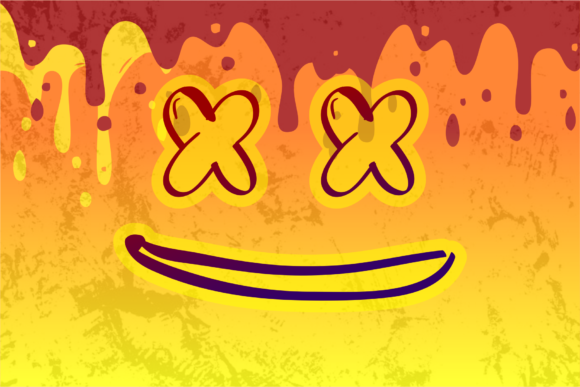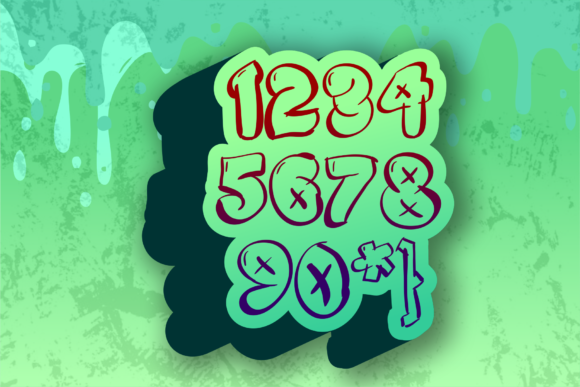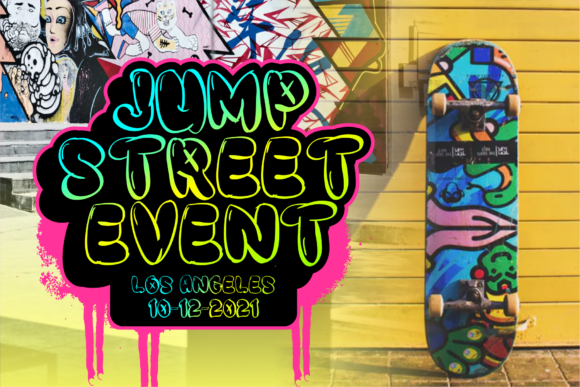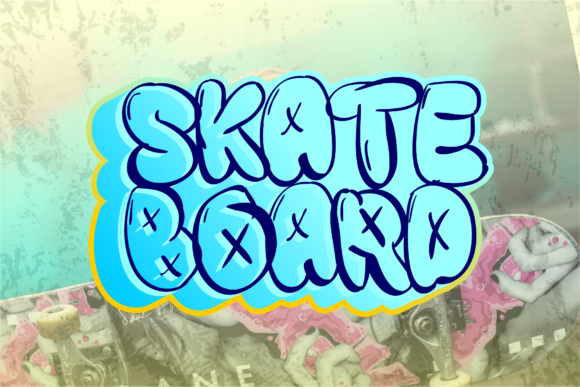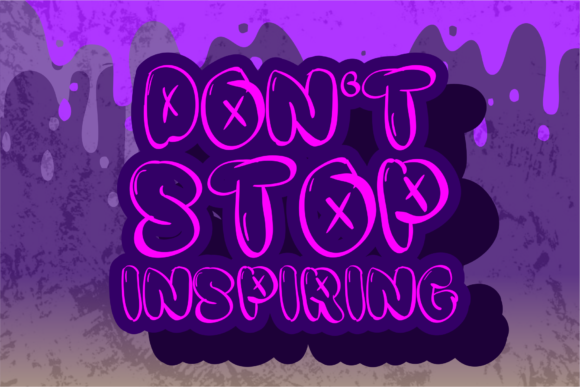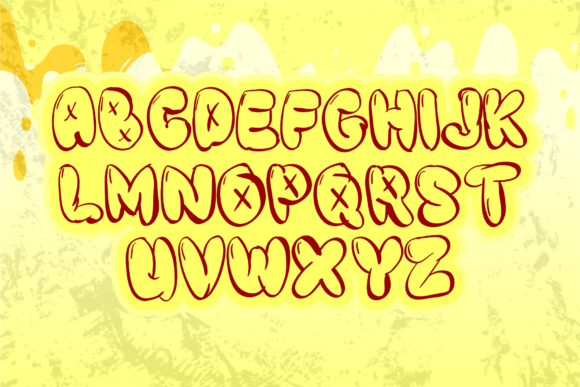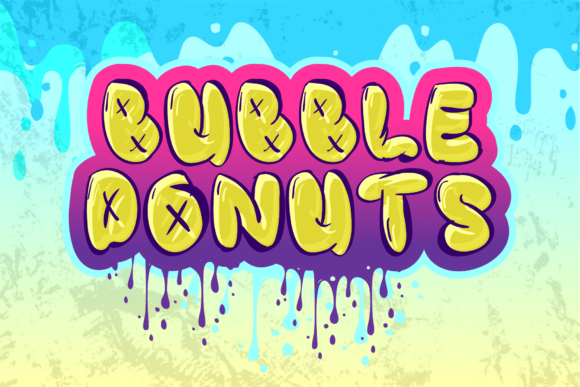
Bubble Donuts Font: The Ultimate Graffiti-Style Display Font for Crafty Creations
Are you a designer, crafter, or DIY enthusiast looking for a font that can add a touch of coolness to your projects? Look no further than the Bubble Donuts Font! This graffiti-styled display font is perfect for elevating a wide range of crafting ideas, from cards and branding to labels and more. In this article, we’ll dive into the world of Bubble Donuts Font and explore its features, benefits, and uses.
What is Bubble Donuts Font?
Bubble Donuts Font is a unique and stylish display font that is inspired by the playful and carefree spirit of graffiti art. Its bold, bubbly letters are designed to make a statement and add a touch of whimsy to any project. Whether you’re creating handmade cards, crafting custom labels, or developing a brand identity, Bubble Donuts Font is the perfect choice.
Features of Bubble Donuts Font
• Graffiti-style design: Bubble Donuts Font features a bold, graffiti-inspired design that is sure to turn heads.
• Display font: This font is specifically designed for display purposes, making it perfect for headlines, titles, and other prominent text elements.
• Cool and playful vibe: Bubble Donuts Font has a fun and carefree spirit that is sure to add a touch of personality to your projects.
• Versatile: This font can be used for a wide range of crafting ideas, from cards and invitations to branding and labels.
Benefits of Using Bubble Donuts Font
So, why should you choose Bubble Donuts Font for your next project? Here are just a few benefits of using this amazing font:
• Adds personality: Bubble Donuts Font is a great way to add a touch of personality and whimsy to your projects.
• Instant impact: The bold, graffiti-style design of Bubble Donuts Font makes an instant impact, grabbing the attention of anyone who sees it.
• Versatile: This font can be used for a wide range of projects, from handmade cards to commercial branding.
Uses for Bubble Donuts Font
So, what can you use Bubble Donuts Font for? The possibilities are endless! Here are a few ideas to get you started:
• Handmade cards: Add a touch of personality to your handmade cards with Bubble Donuts Font.
• Branding and labels: Use this font to create custom labels and branding elements that stand out.
• Invitations and party decor: Bubble Donuts Font is perfect for creating fun and playful invitations and party decor.
• DIY projects: Add a touch of whimsy to your DIY projects, such as scrapbooking, journaling, and more.
Tips for Using Bubble Donuts Font
Here are a few tips for getting the most out of Bubble Donuts Font:
• Use it sparingly: While Bubble Donuts Font is bold and eye-catching, it can be overwhelming if used too much. Use it sparingly to make a bigger impact.
• Pair it with other fonts: Experiment with pairing Bubble Donuts Font with other fonts to create a unique and interesting look.
• Experiment with colors: Don’t be afraid to experiment with different colors and textures to add depth and interest to your projects.
In conclusion, Bubble Donuts Font is a cool and graffiti-styled display font that is perfect for adding a touch of personality and whimsy to your crafting projects. With its bold, bubbly letters and versatile design, this font is sure to elevate a wide range of crafting ideas, from cards and branding to labels and more. So why wait? Add Bubble Donuts Font to your favorite creations and let yourself be amazed by the outcome!